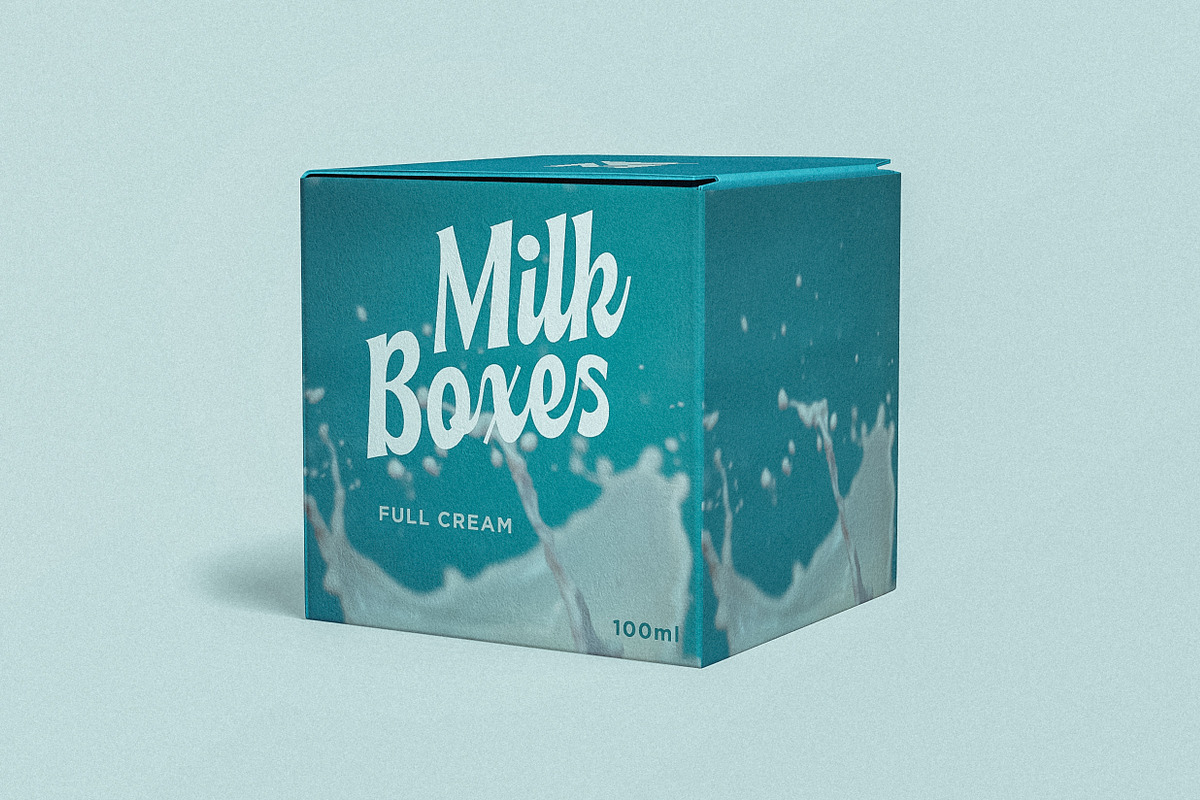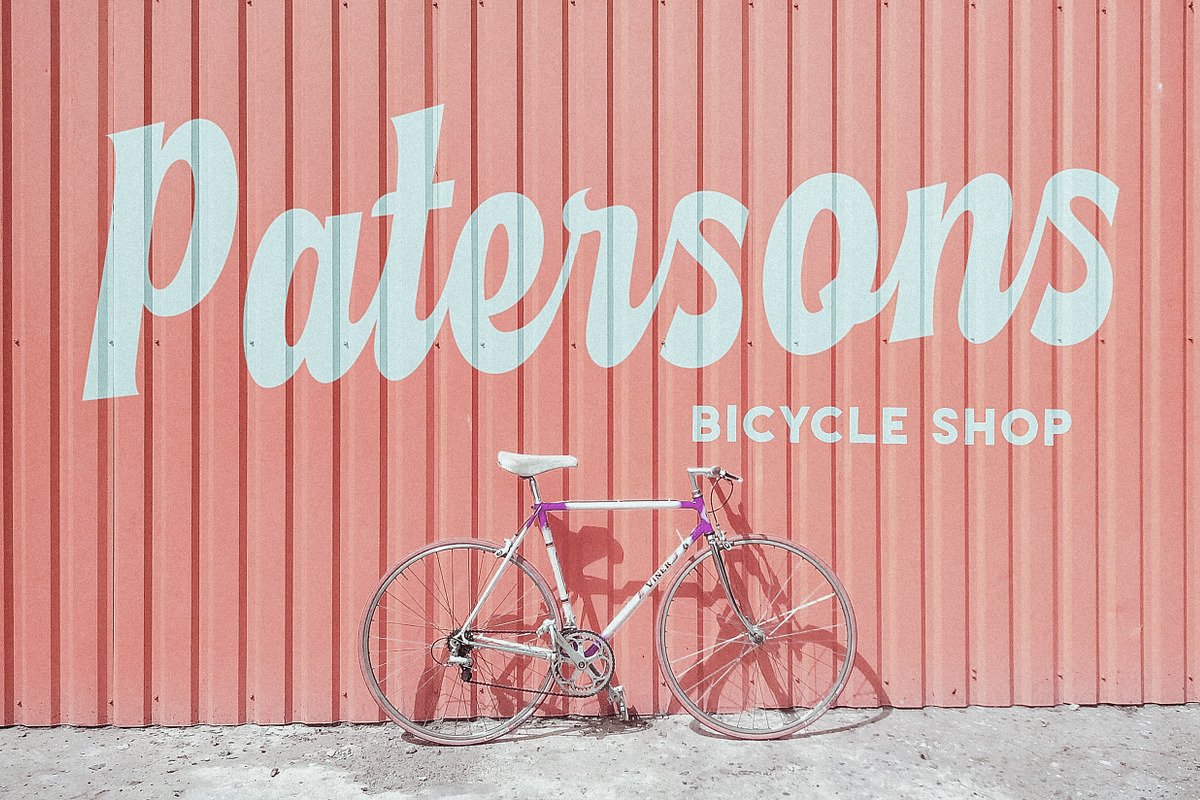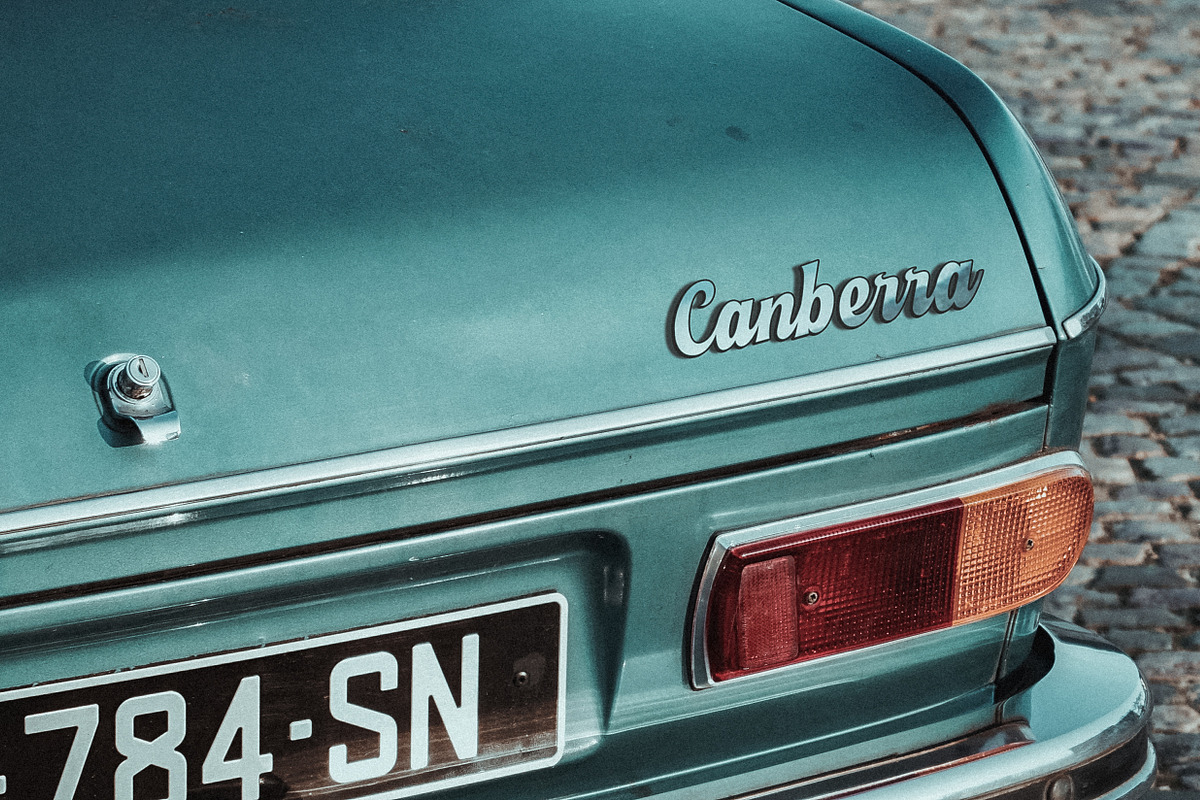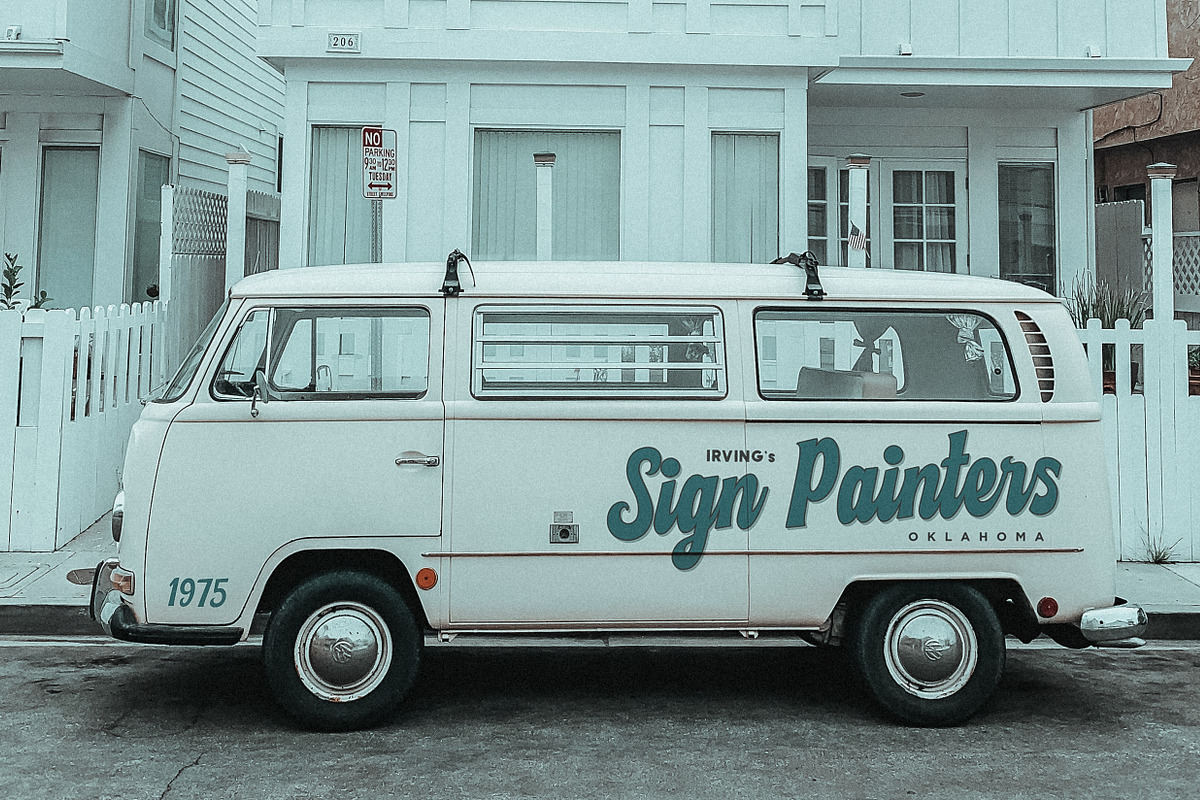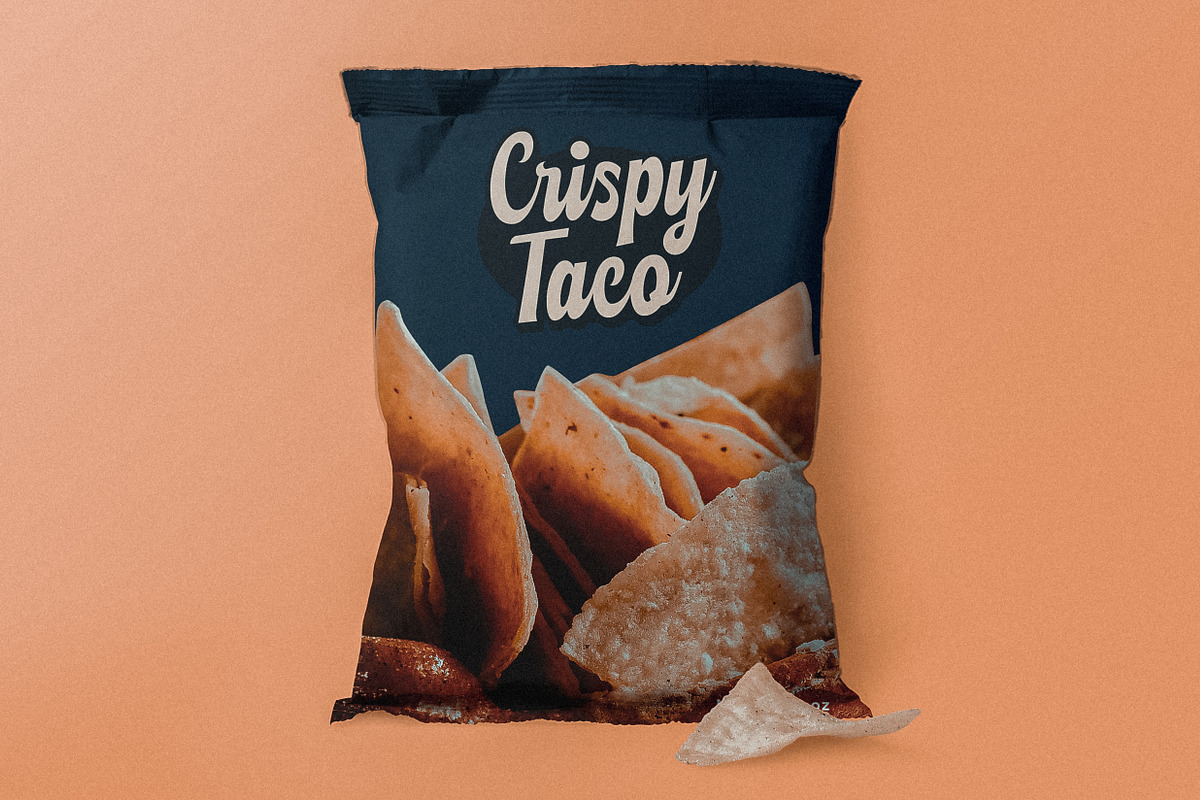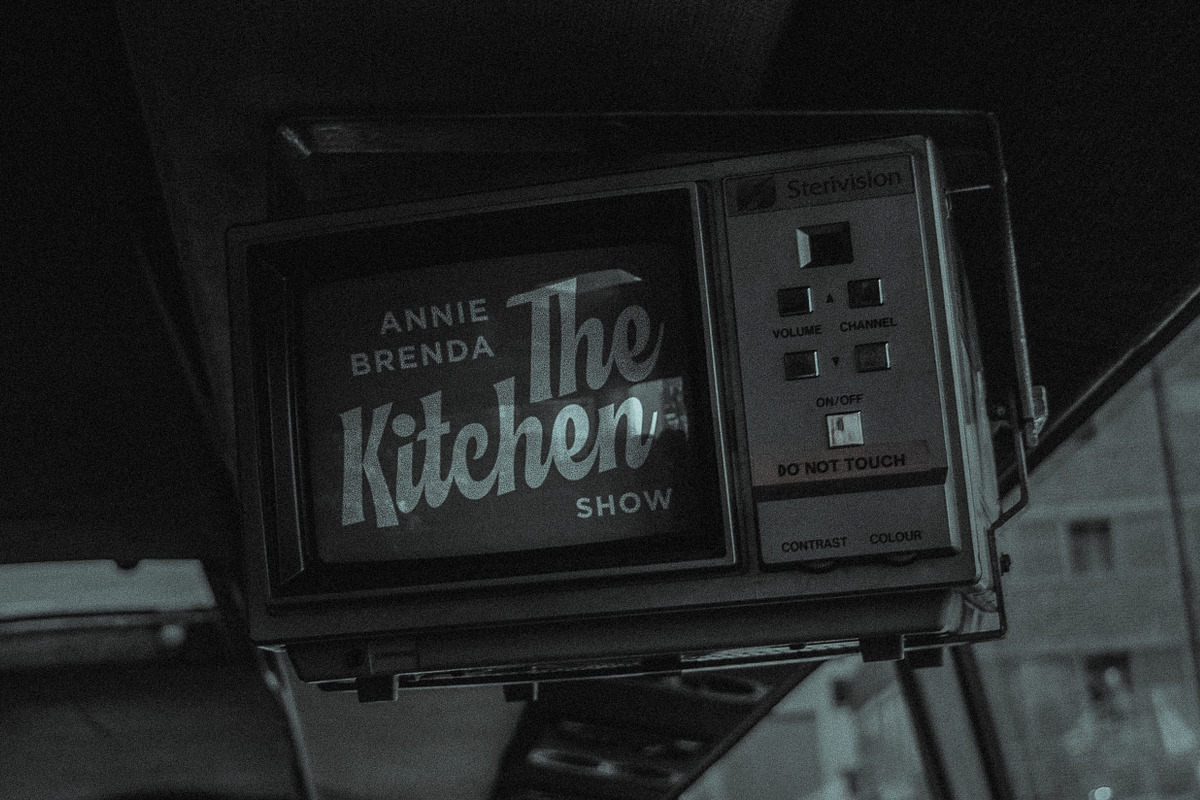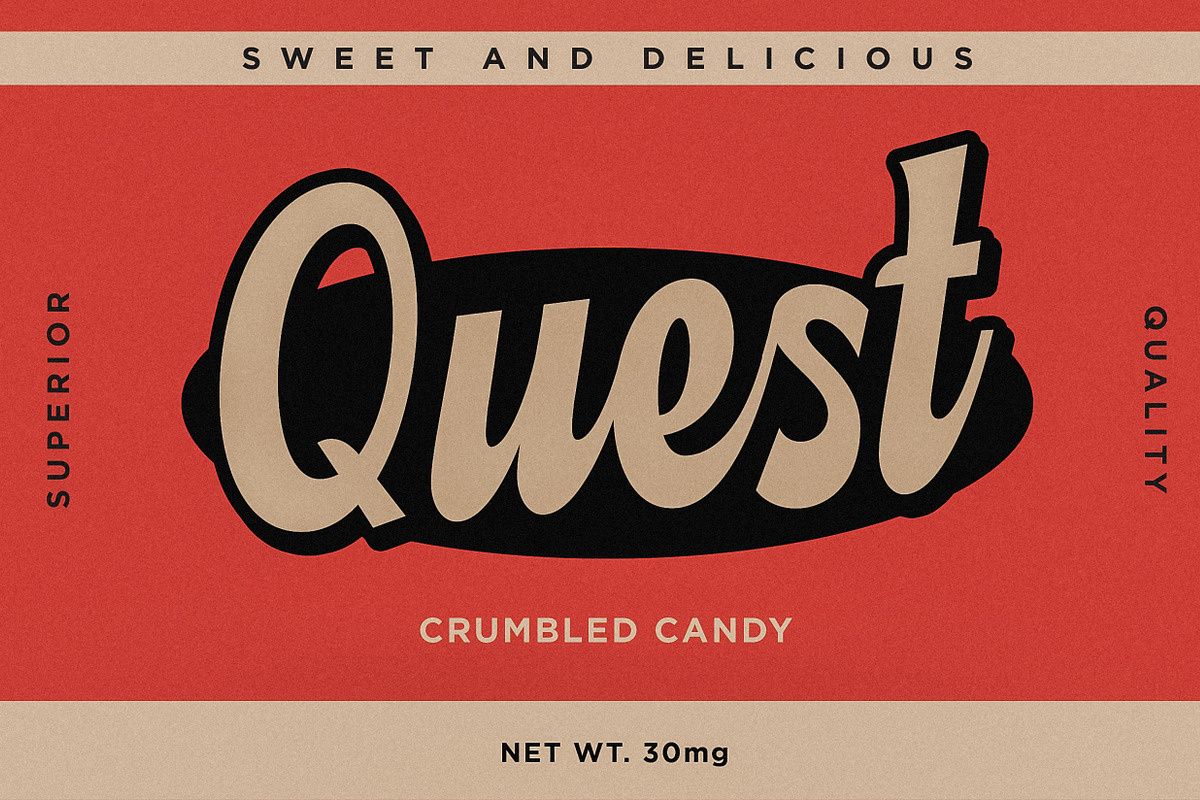
Mister Quenos - Vintage Script Font
Inspired from the vintage packaging from the 1970 era. With the popping colour and decorative typeface. We build this font with very carefully crafted in every single letters. And we proudly present to you, Mister Quenos. A bold and crisp font with vintage vibes even when you type it out in the blank screen, it could instantly bring you back to that era (without any time machine involved)